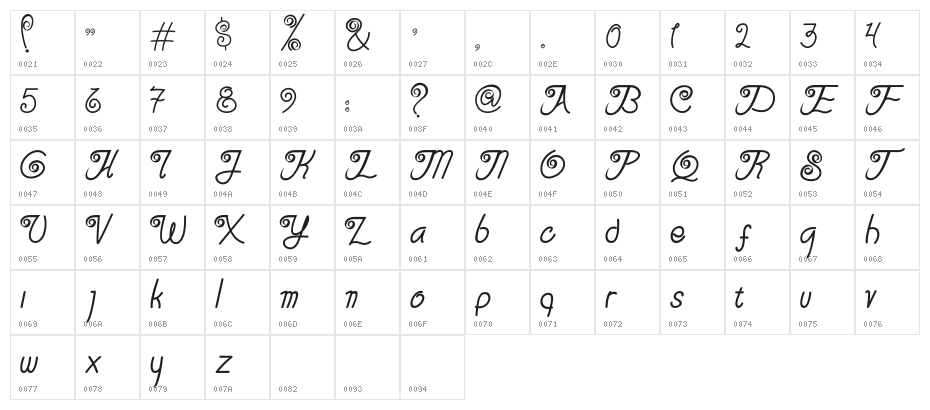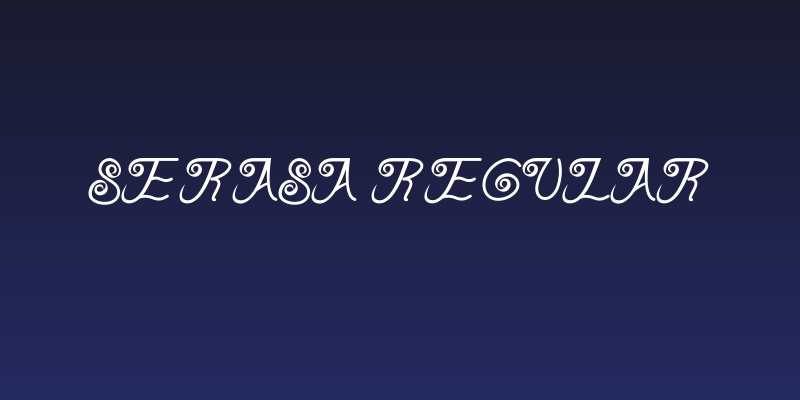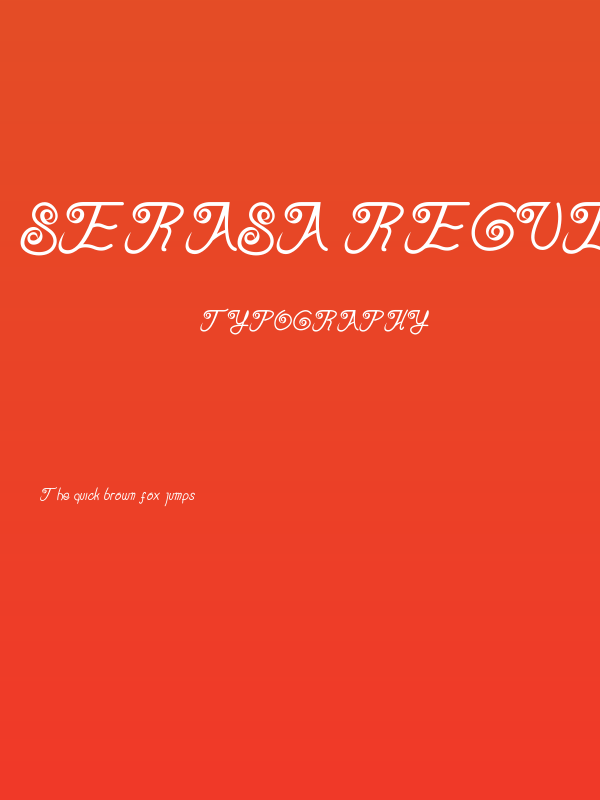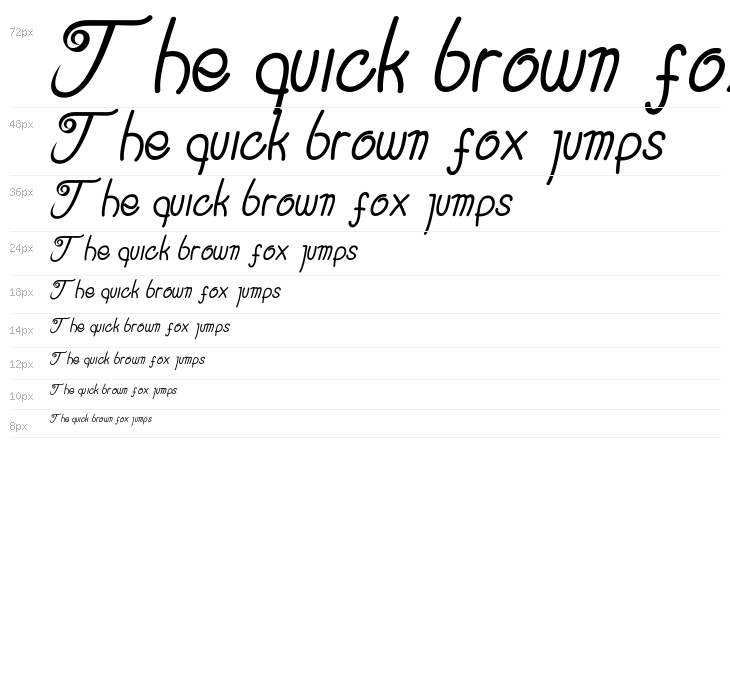
Serasa Regular Font
Serasa Regular Description
This font features a whimsical and playful script style with a unique flair. The uppercase letters exhibit a decorative quality with swirling elements, while the lowercase letters maintain a more straightforward yet still lively appearance. The numerals are distinct and carry the same playful essence, making them stand out. Special characters are creatively designed, adding to the font's overall charm. This font's style is both elegant and fun, suitable for projects that require a touch of creativity and personality.
| Proposed Projects | Ideal for greeting cards, invitations, playful branding, children's books, and creative posters. |